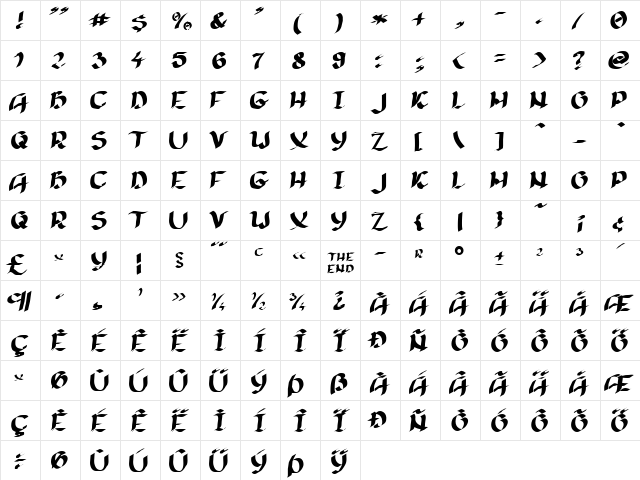
ZPergament_CapsDemo Normal Free Font
ZPergament_CapsDemo Normal
Design Context for ZPergament_CapsDemo
ZPergament_CapsDemo is a composed and adaptable typeface that performs quietly and consistently across a wide range of design contexts.
Pro Tip: Use ZPergament_CapsDemo in both headline and body roles to test its range before committing to a single application.